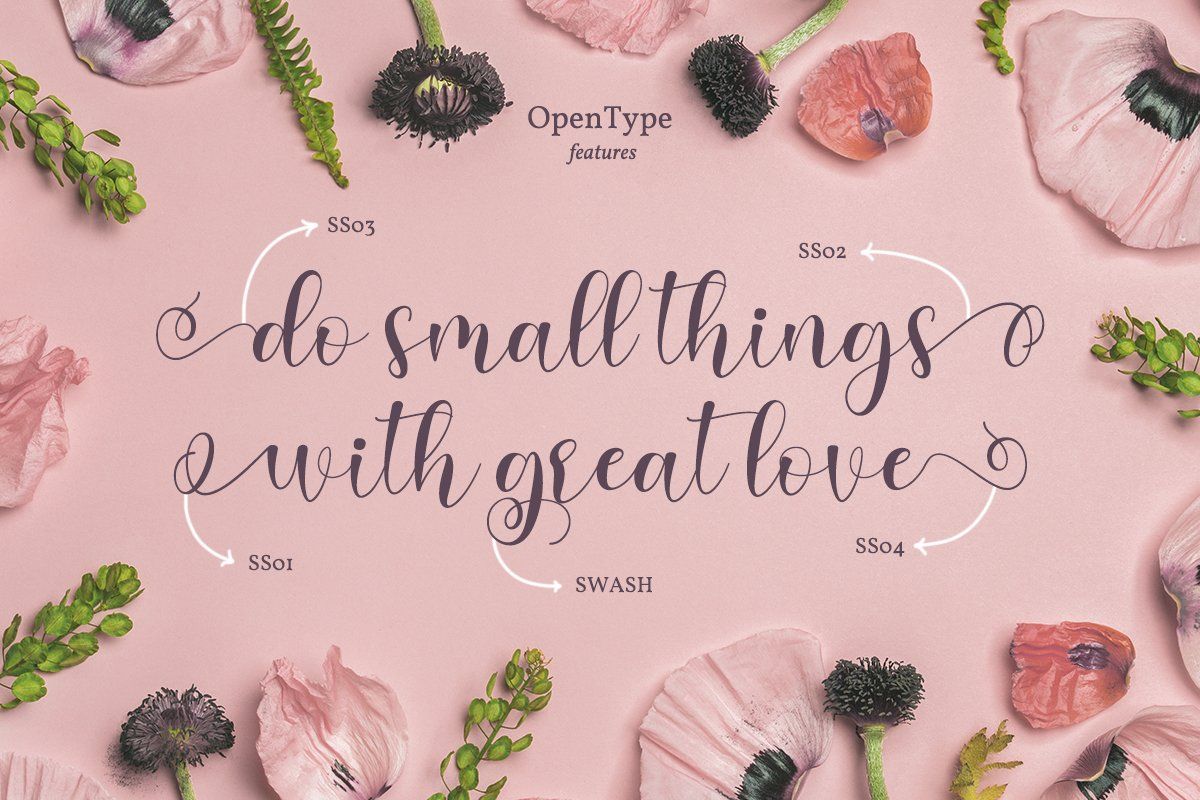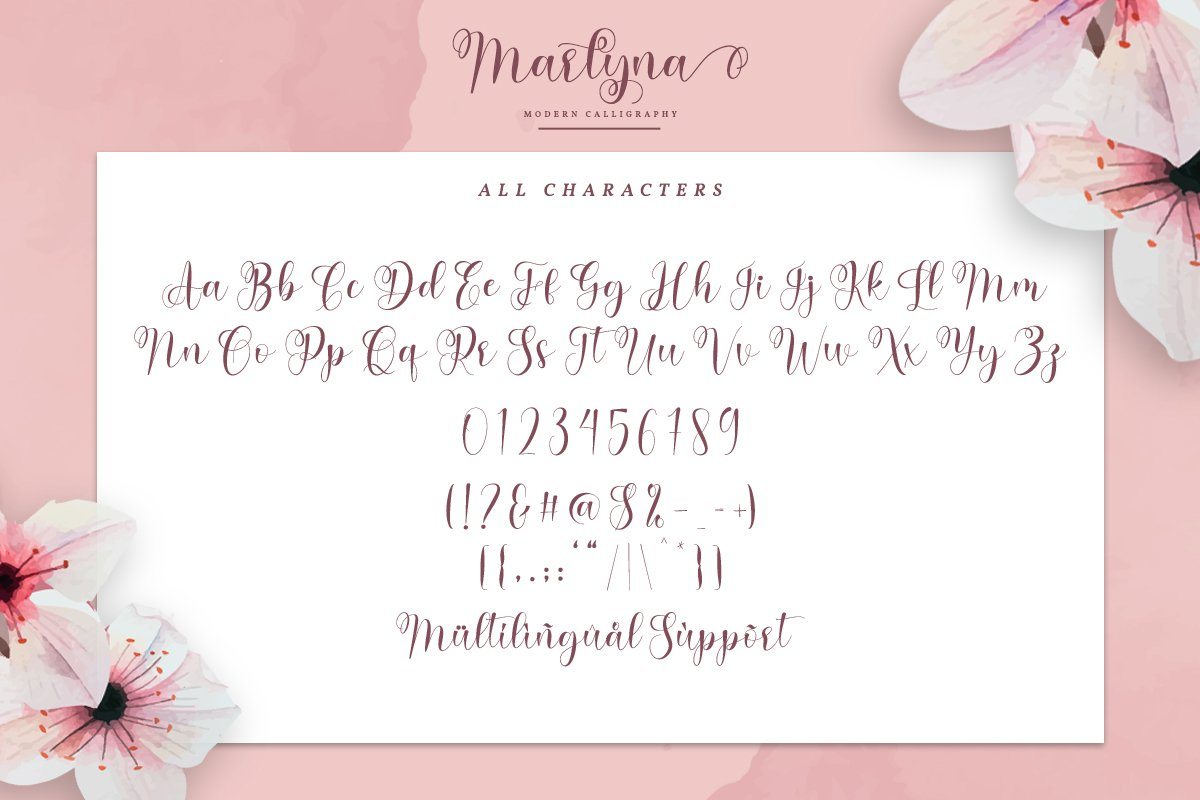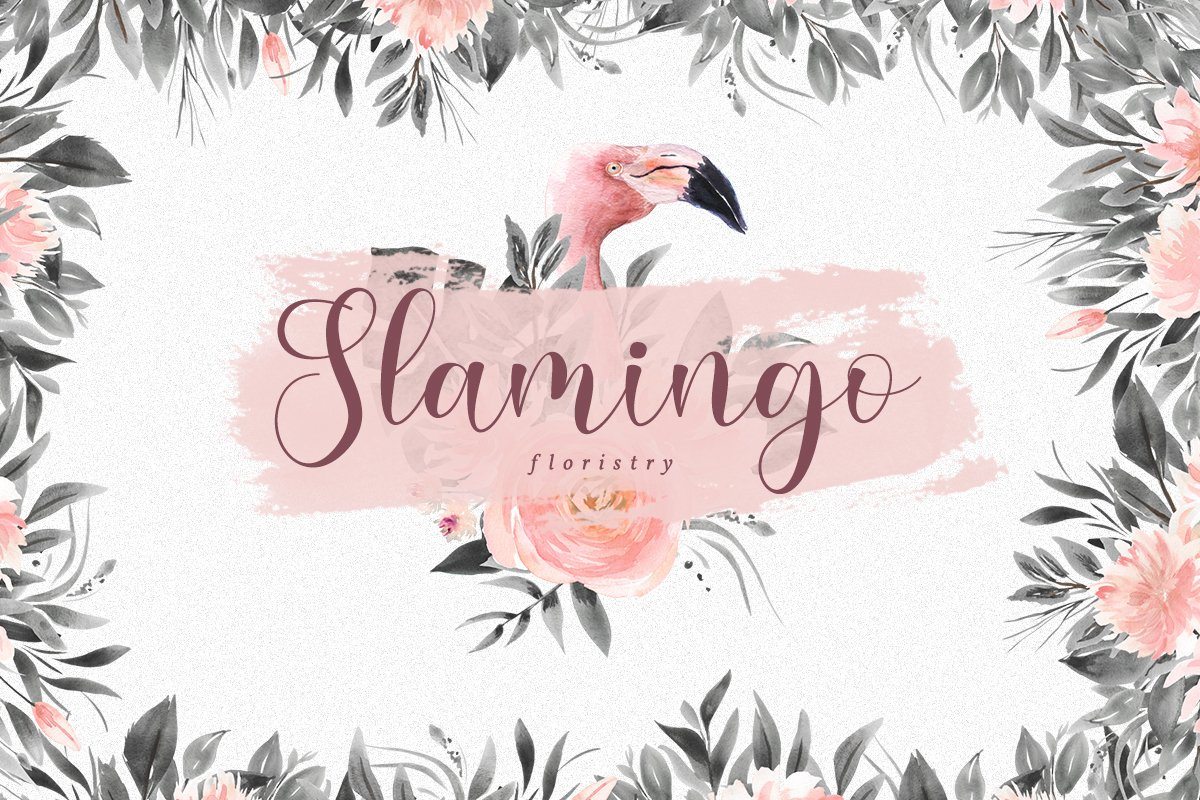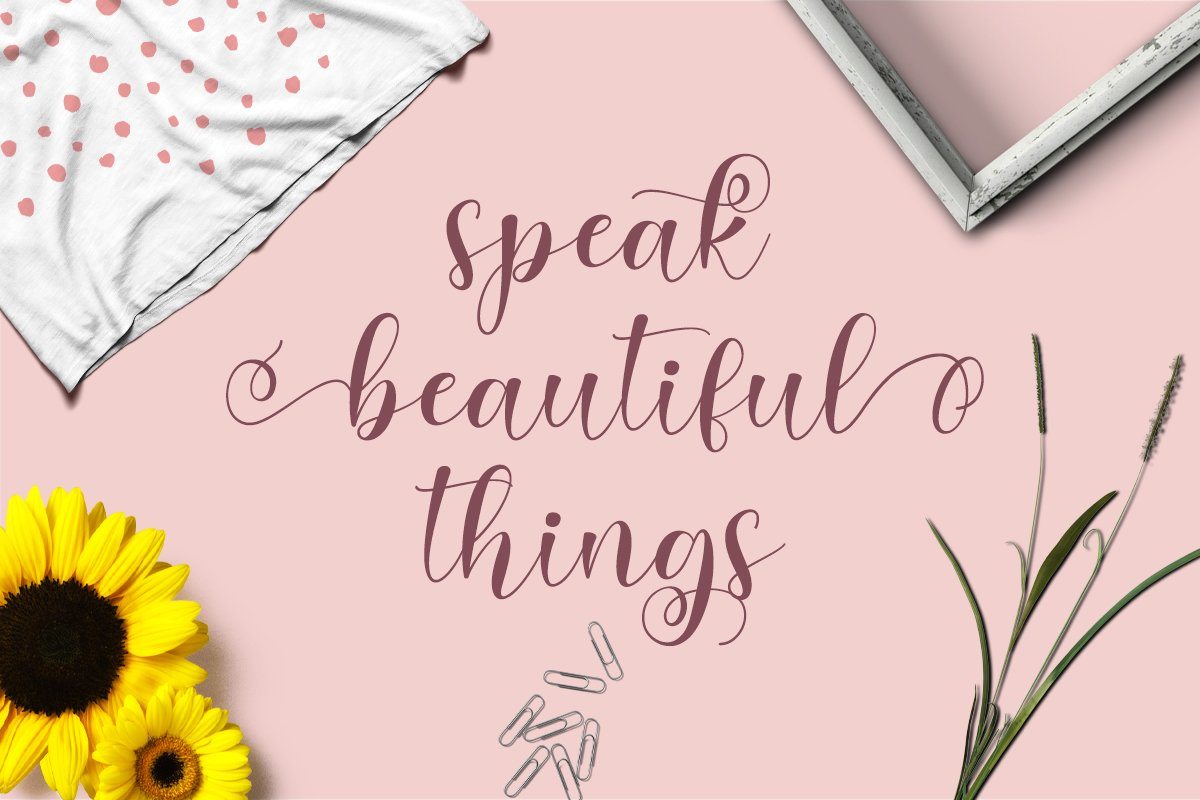
About Marlyna Script
Say hello to Marlyna Script. Marlyna is a beautiful and modern script. It brings a beautiful and modern typeface that best used for weddings, branding, logotype, and quotes. Includes : – Marlyna (OTF,TTF,WOFF) Features : Beautiful Ligatures Beautiful Alternates + Swashes PUA Encoded Multilingual Support Numerals and Punctuation Beginning Swash and Ending Swashes (a-z) Easy Uses Thank You for visiting our shop Have a nice day !